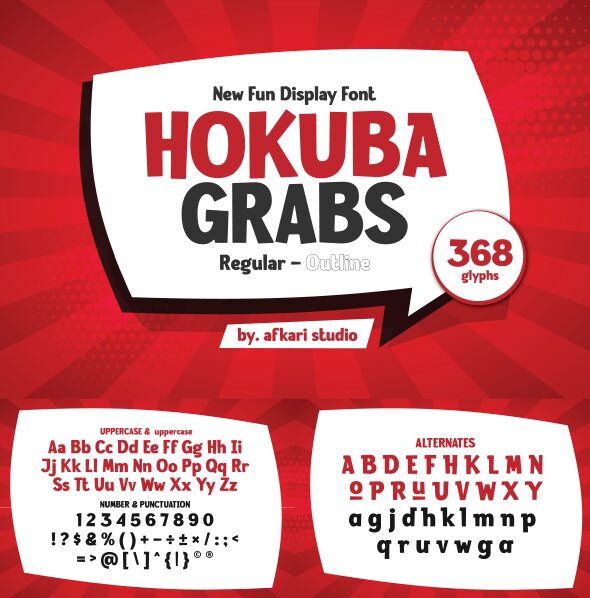
Hokuba Grabs Outline, a bold and playful member of the Hokuba Grabs family, leaps off the page with its cartoon-inspired display style. Crafted by Afkari Studio, this font embodies a whimsical charisma that is both eye-catching and delightfully expressive. Its outlined contours are reminiscent of classic comic book artistry, offering a visual feast that can instantly inject fun and liveliness into any project.
The sturdy weight of Hokuba Grabs Outline ensures it stands out in headlines, logos, and posters where a touch of humor is desired. The versatility of this font lies in its ability to maintain readability while offering a strong personality-perfect for creative endeavors that aim to be memorable and engaging. Whether used for children's books, animated web content or event promotions, Hokuba Grabs Outline is sure to capture attention and hold it with its charming appeal.